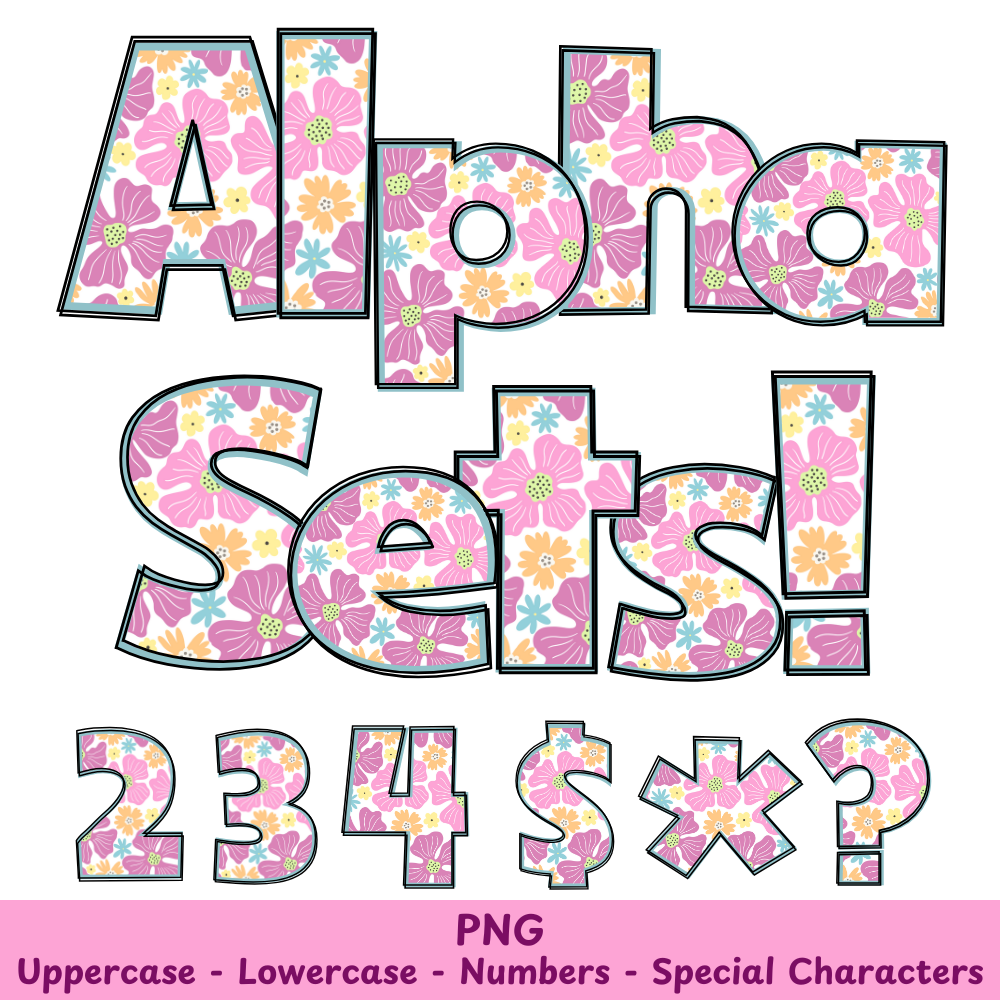
Purple/Pink Flowers PNG Font
Purple/Pink Flowers Alpha Set PNG Font Pack
Add a touch of nature to your crafts with the Purple/Pink Flowers PNG Font. Perfect for sublimation and other projects, this font features beautiful purple and pink flowers that will elevate your designs. Bring your creations to life with this versatile and stunning font.